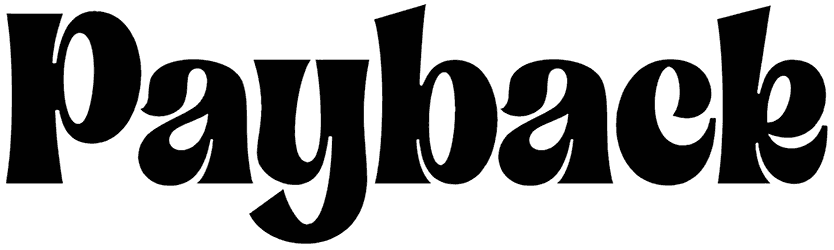
Payback Font
Particularly developed to express happy vibes in your lettering, Payback is everything you need to turn people’s heads. The only thing you may be concerned about is the missing digits, but let’s see how Payback makes up for that with extra playfulness.
Once you get your hands on this fun, groovy font, you’ll get plenty of different opportunities to make use of it for upgrading your text. From summer posters to candle labels, this mushroom font is good for everything.